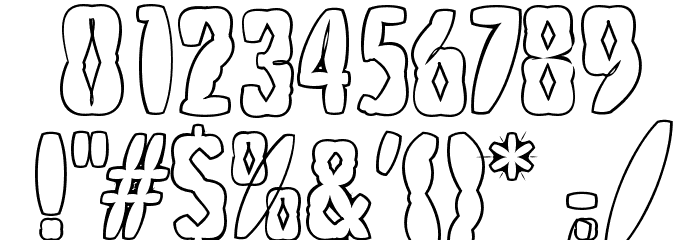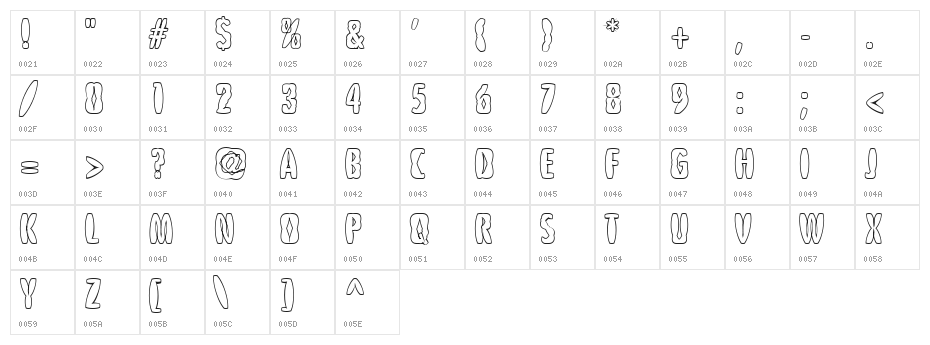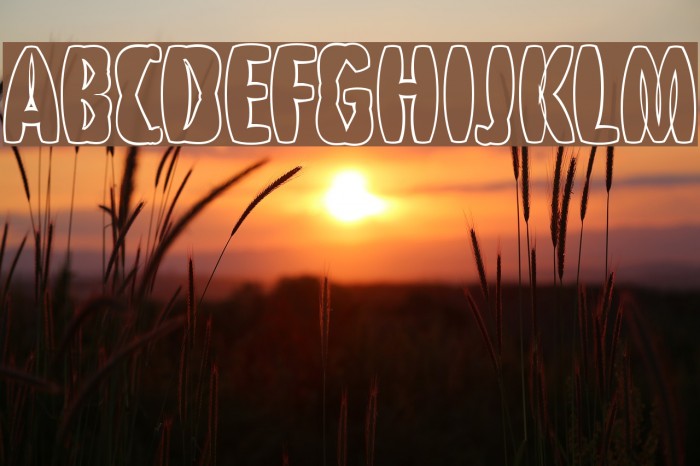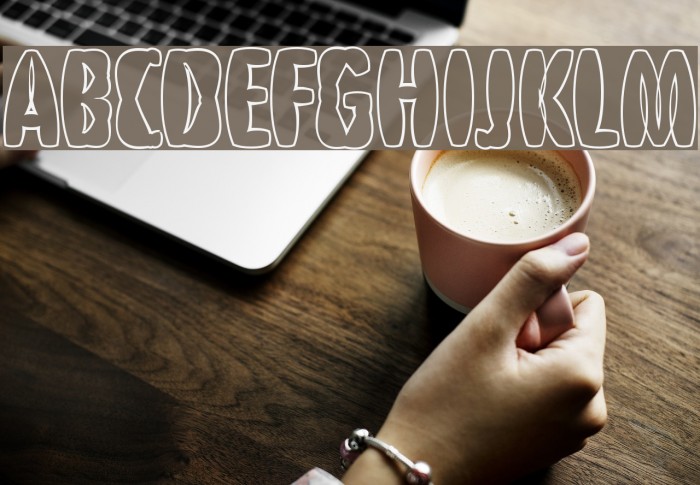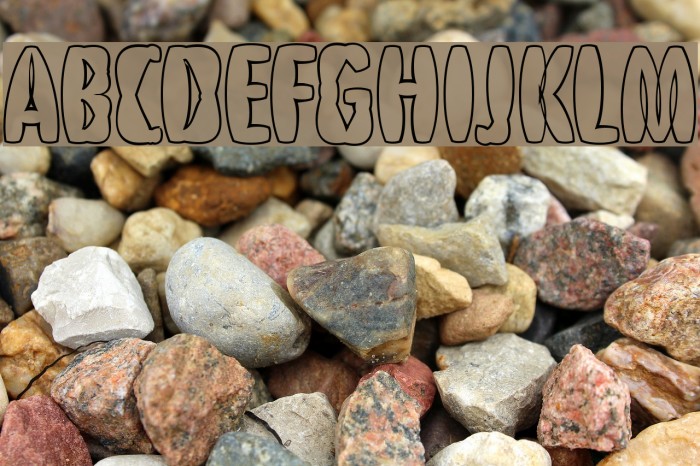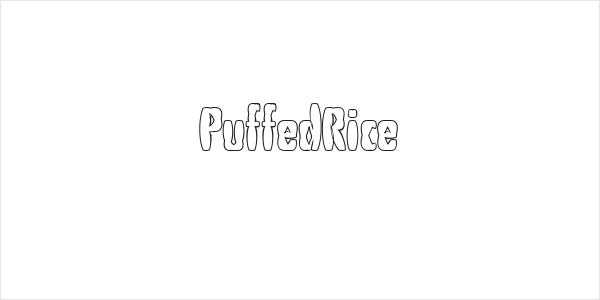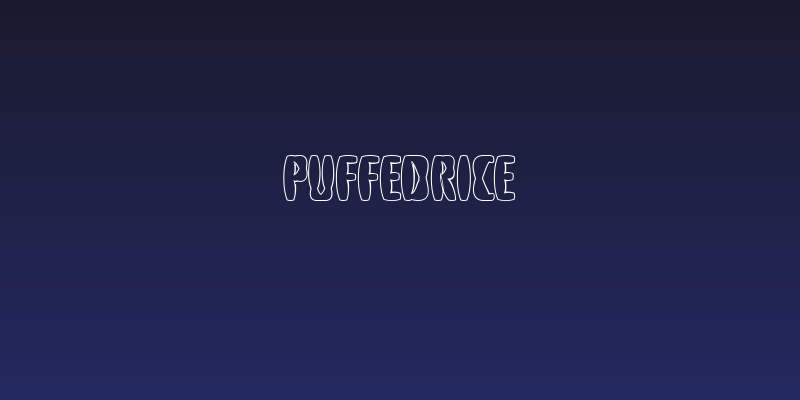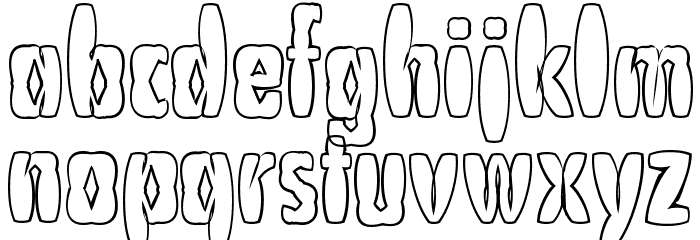
PuffedRice Font
PuffedRice Description
This playful and whimsical font features a bubbly, inflated appearance reminiscent of puffed rice. Each character is outlined with a bold, black stroke, giving it a cartoon-like quality. The letters are rounded and slightly irregular, adding to the casual and fun aesthetic. The font maintains a consistent thickness throughout, with a slight variation in the curves that enhances its playful nature. The numbers and special characters follow the same style, ensuring a cohesive look across all elements. This font is perfect for projects that require a lighthearted and informal touch.